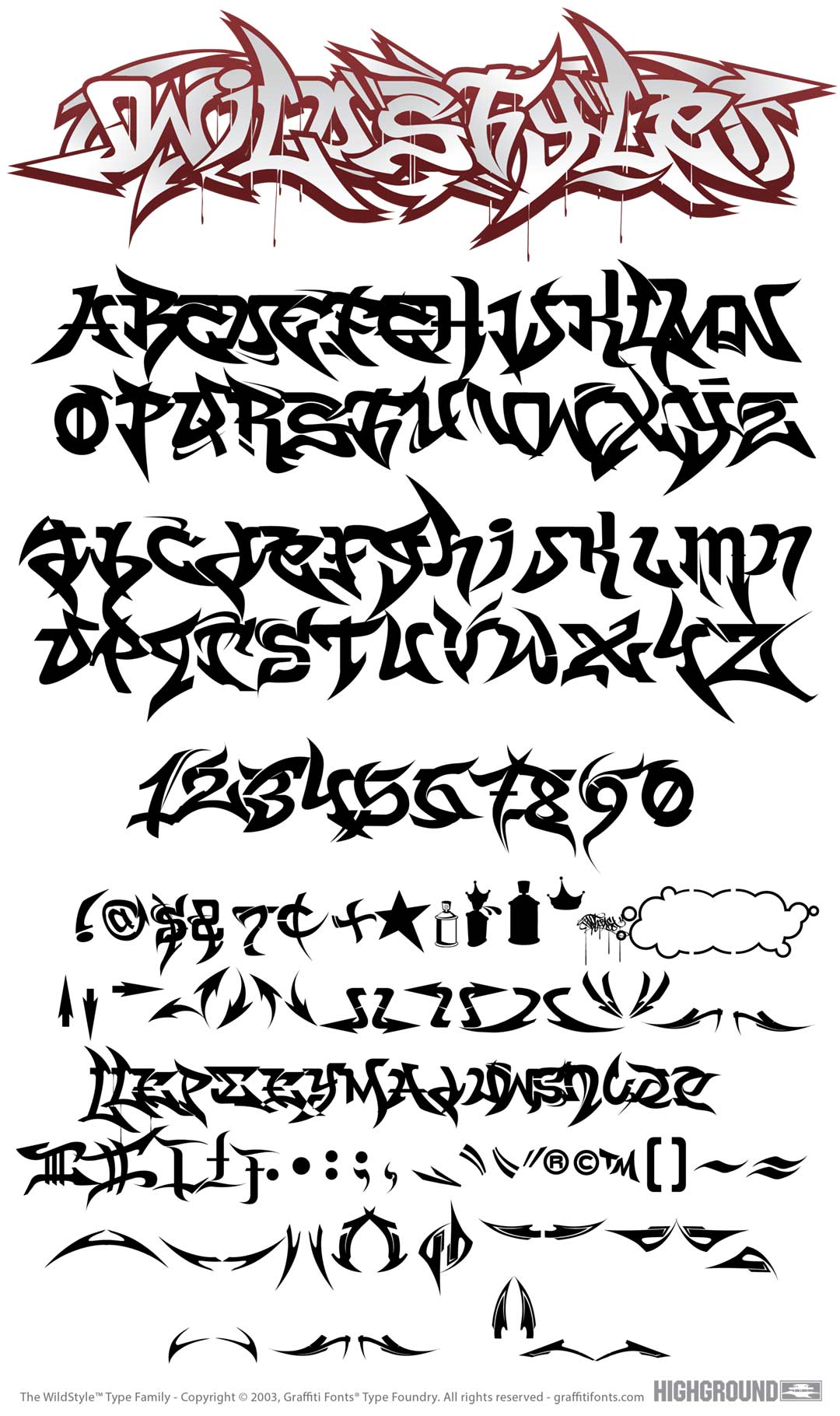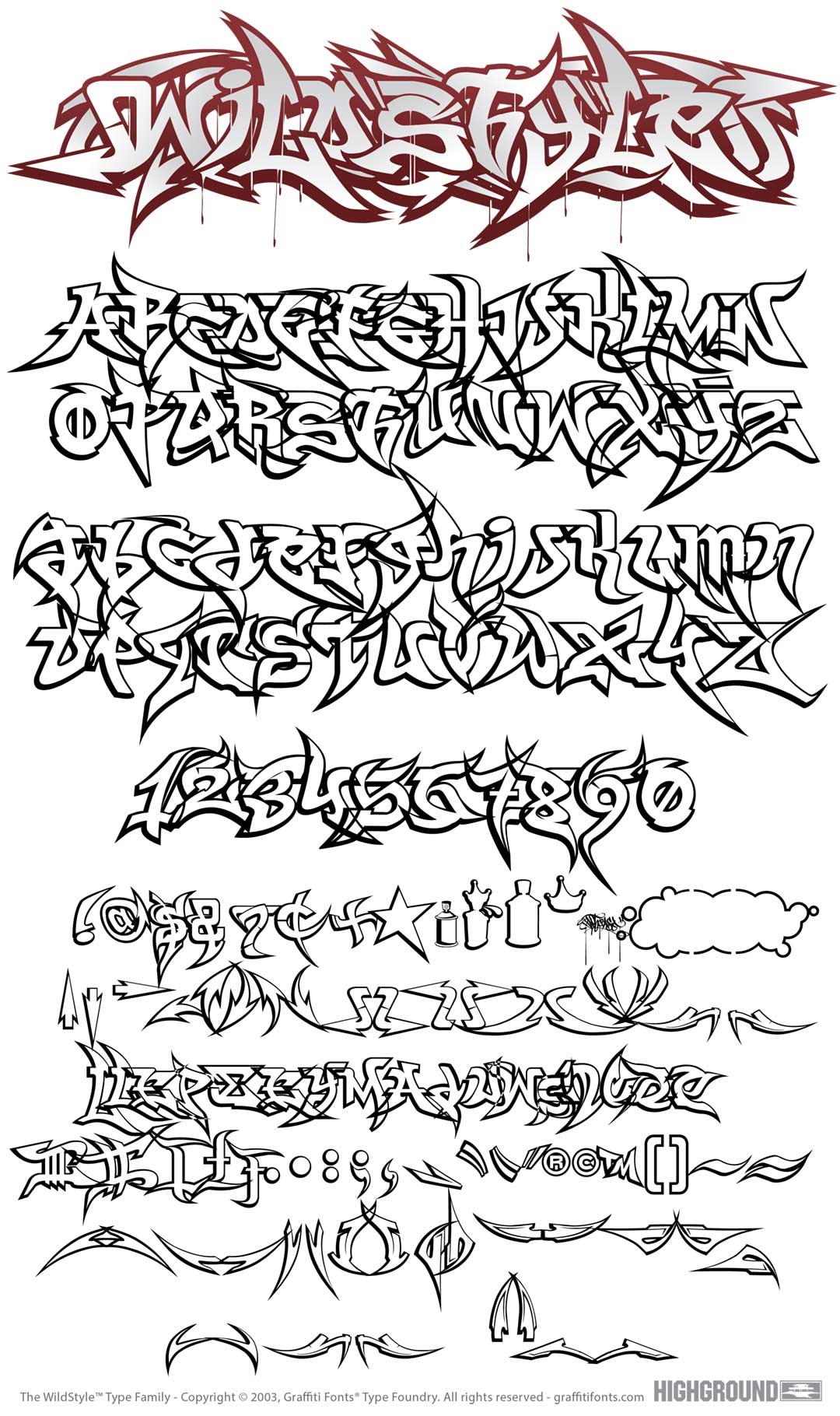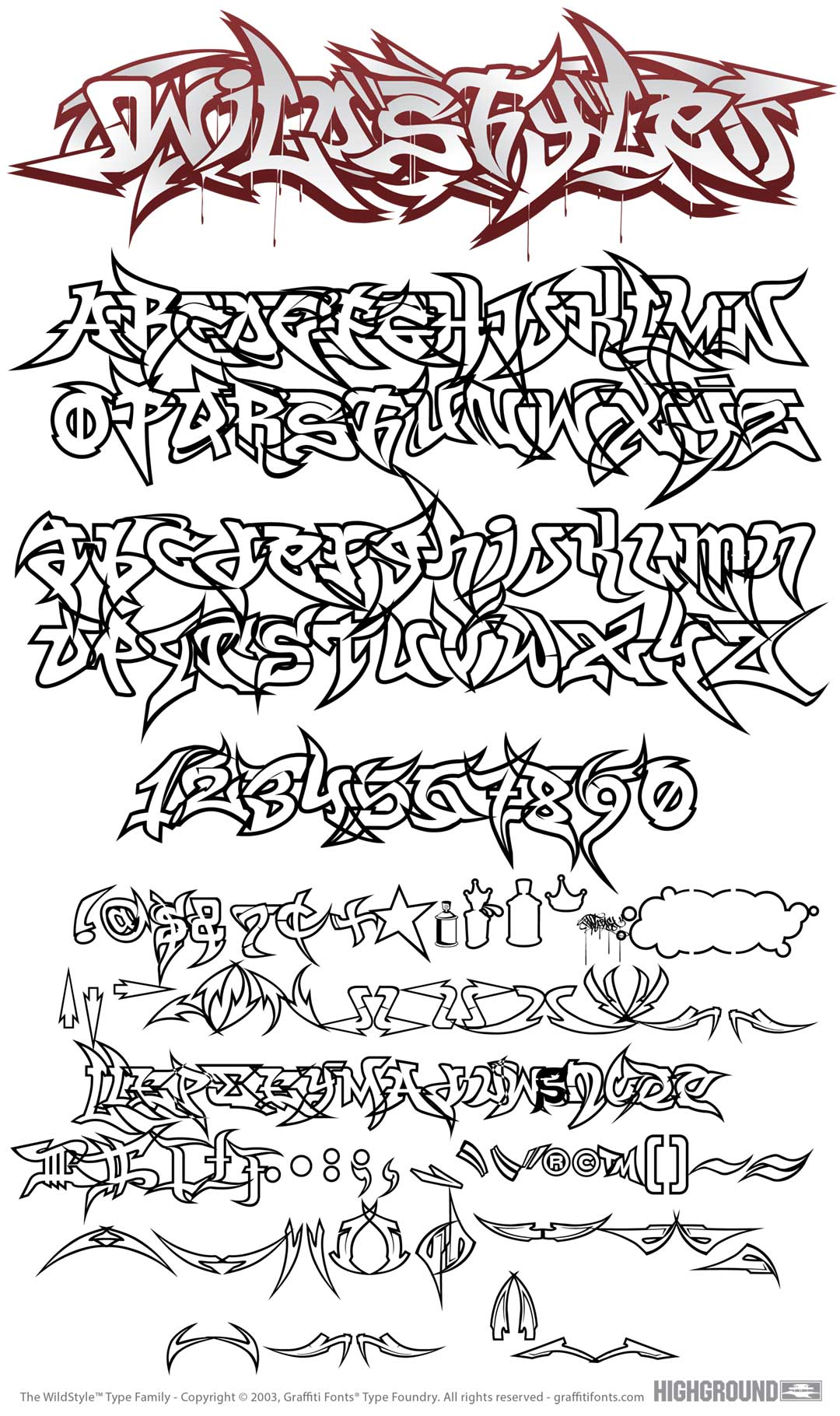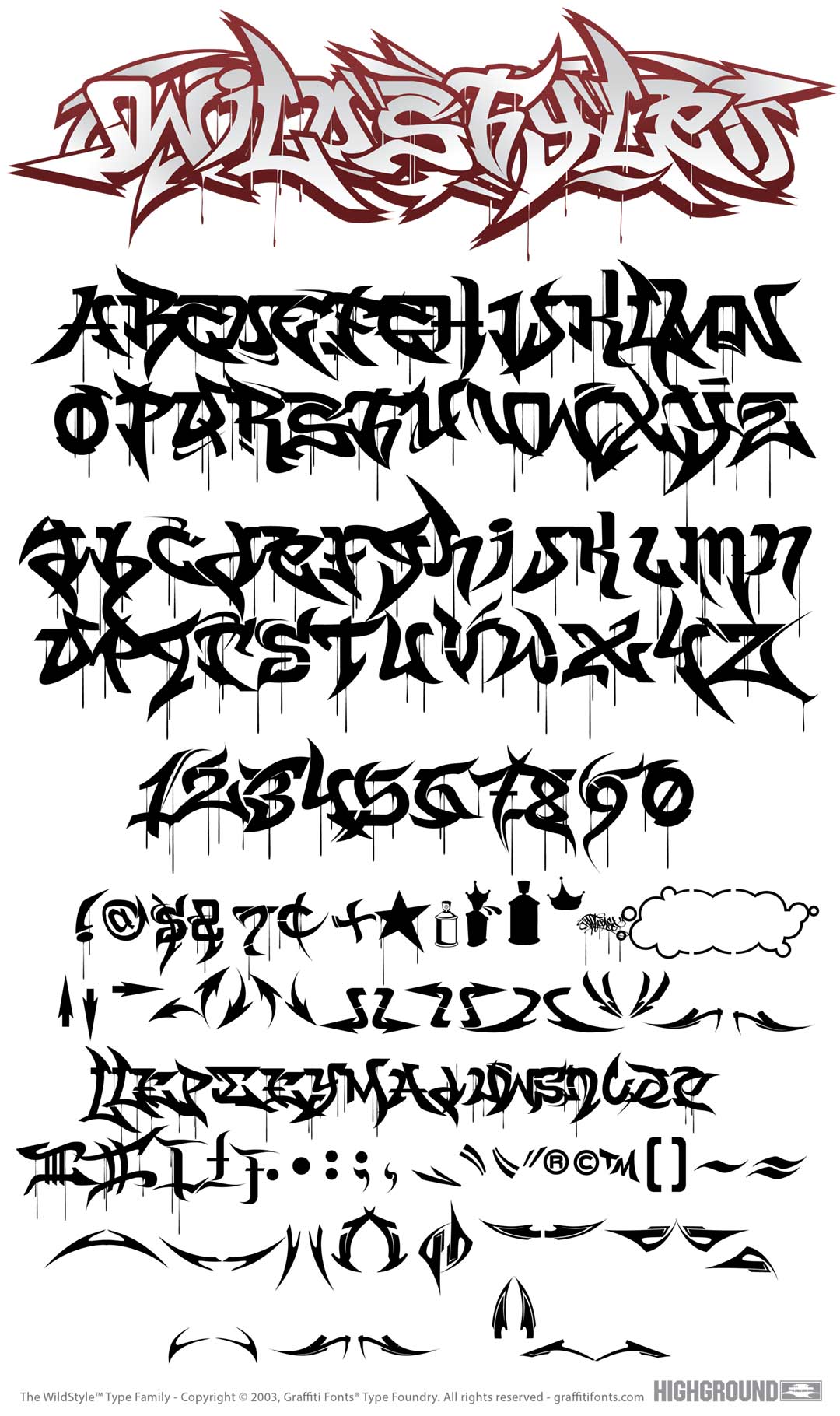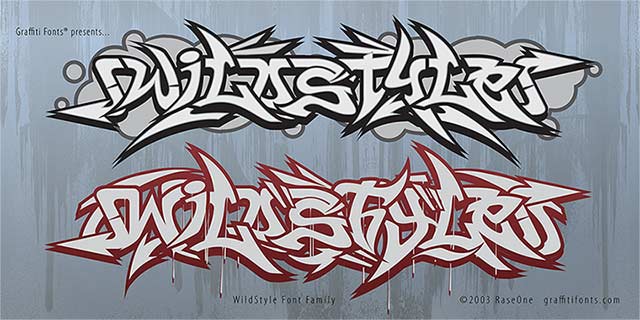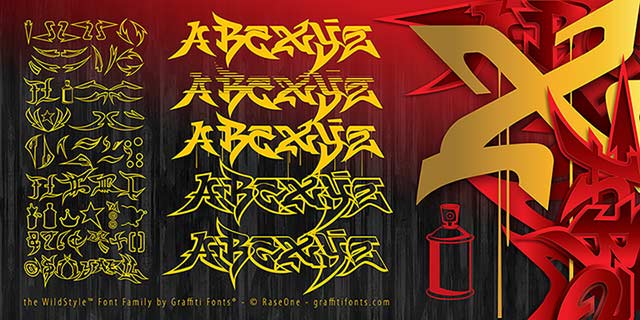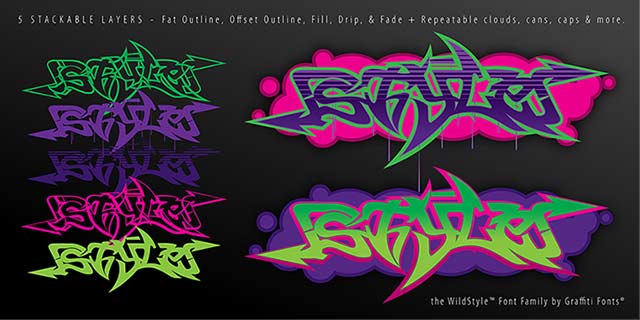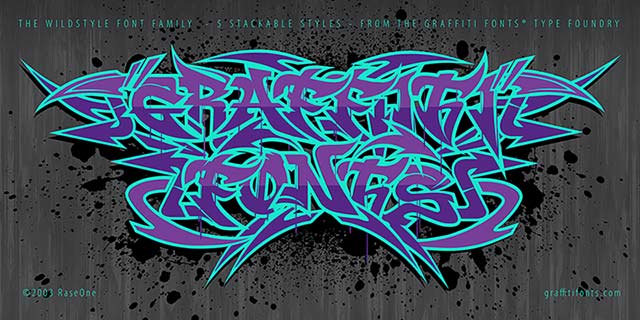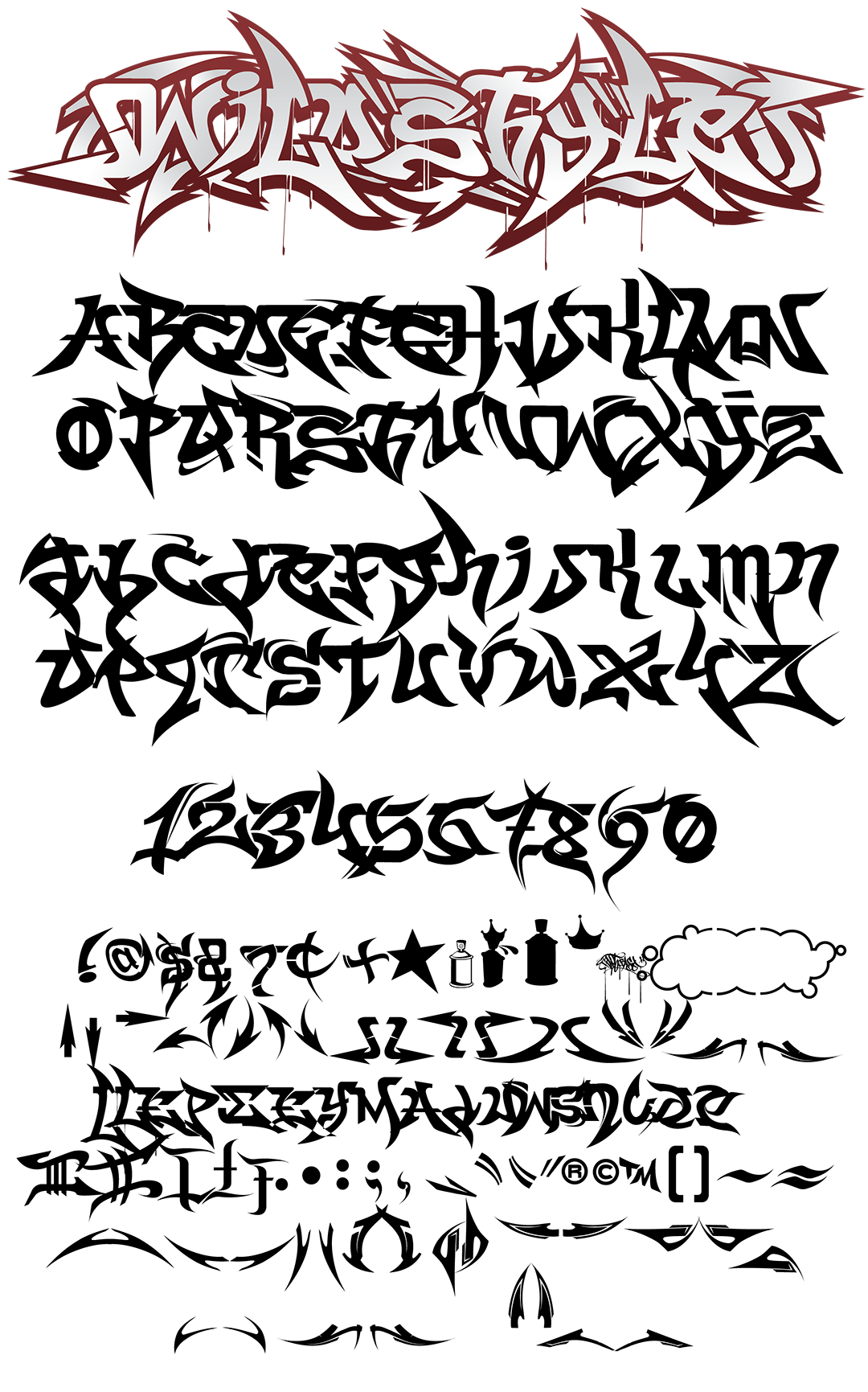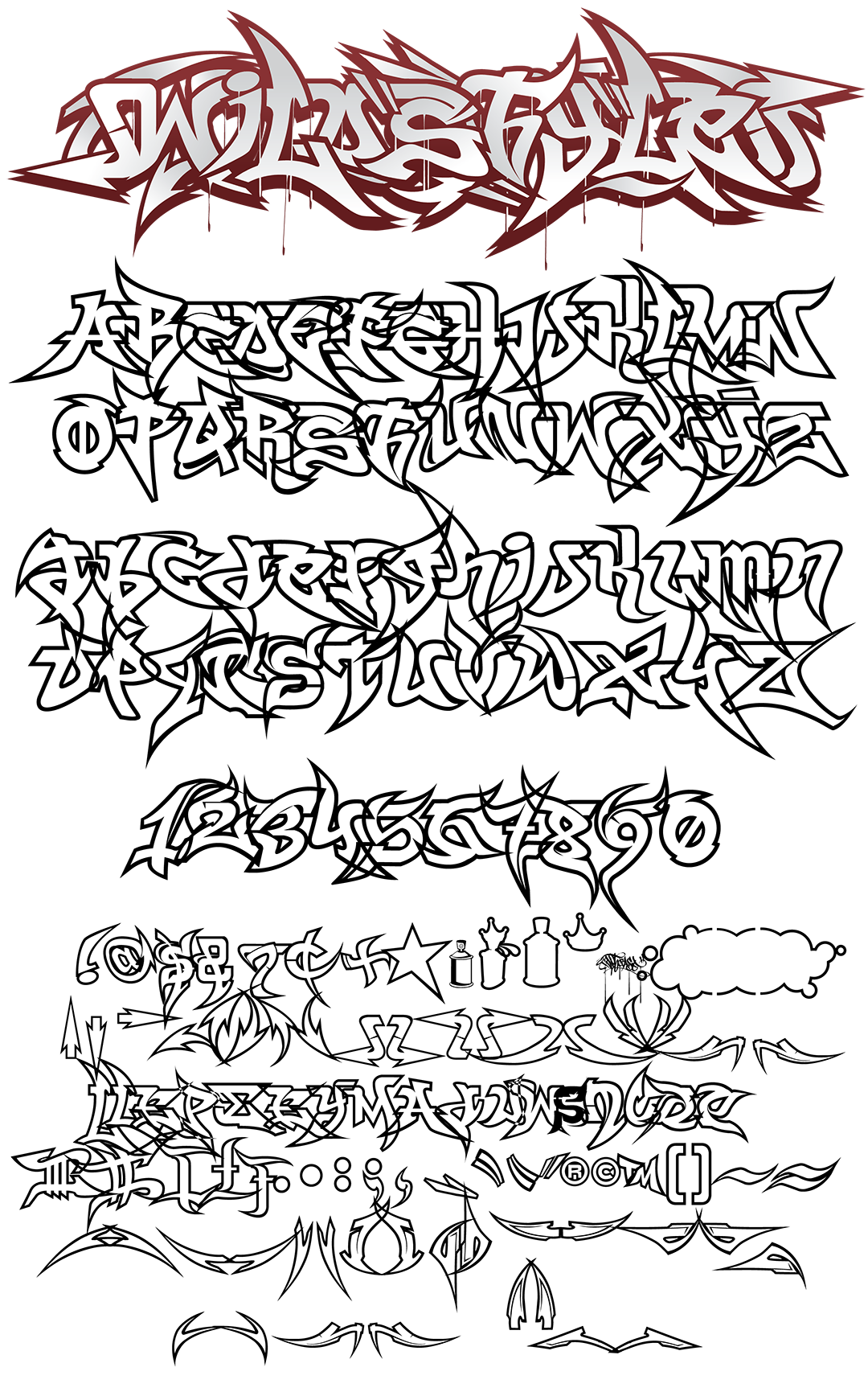
With 256 graffiti characters in each of 5 styles the WildStyle font family boasts 1,280 individual letters, numbers, symbols, & flourishes such as arrows, underlines & end pieces. Solid fill, outline, fat outline, drip & fade styles are included. Letters, symbols & artwork in this font will connect & interlock to create realistic but legible wildstyle pieces. The 5 styles in this layered type system: Fill, Drip, Outline Fat and Fade, can be stacked in various combinations to add fill, detail & outline styles to any piece. This font also includes a number of simple graffiti dingbats like spray cans, crowns and a repeatable cloud background. Developed in 2003 and first widely released in 2005 as part of the Graffiti Fonts® 3.0 collection, this family was the first digital font to feature connecting, wildstyle, graffiti letters.